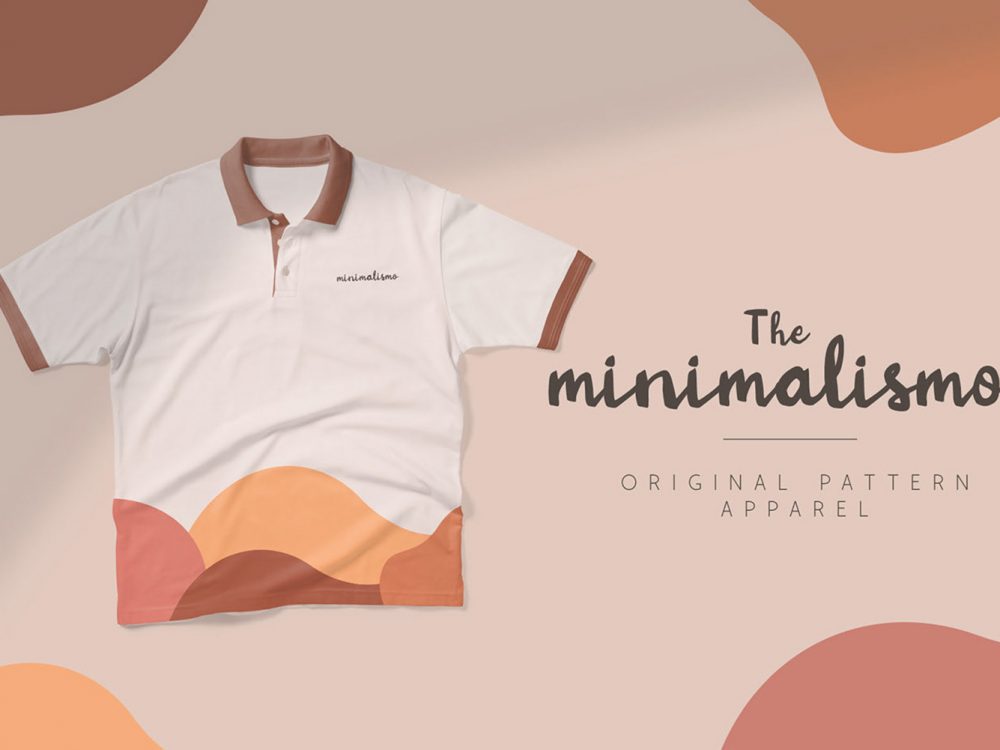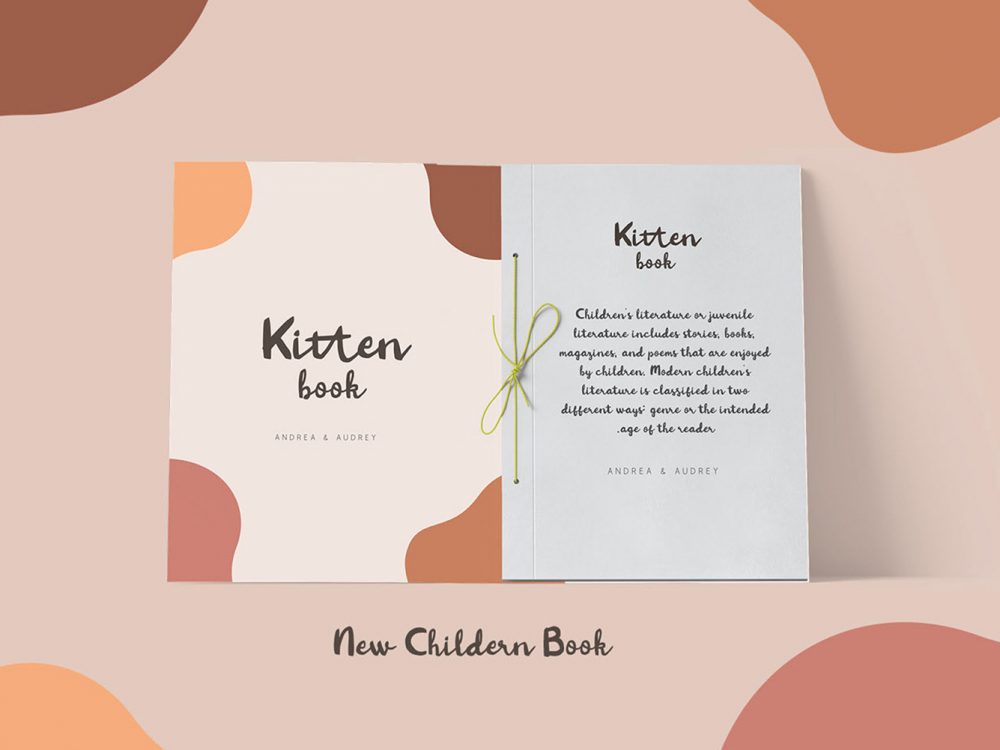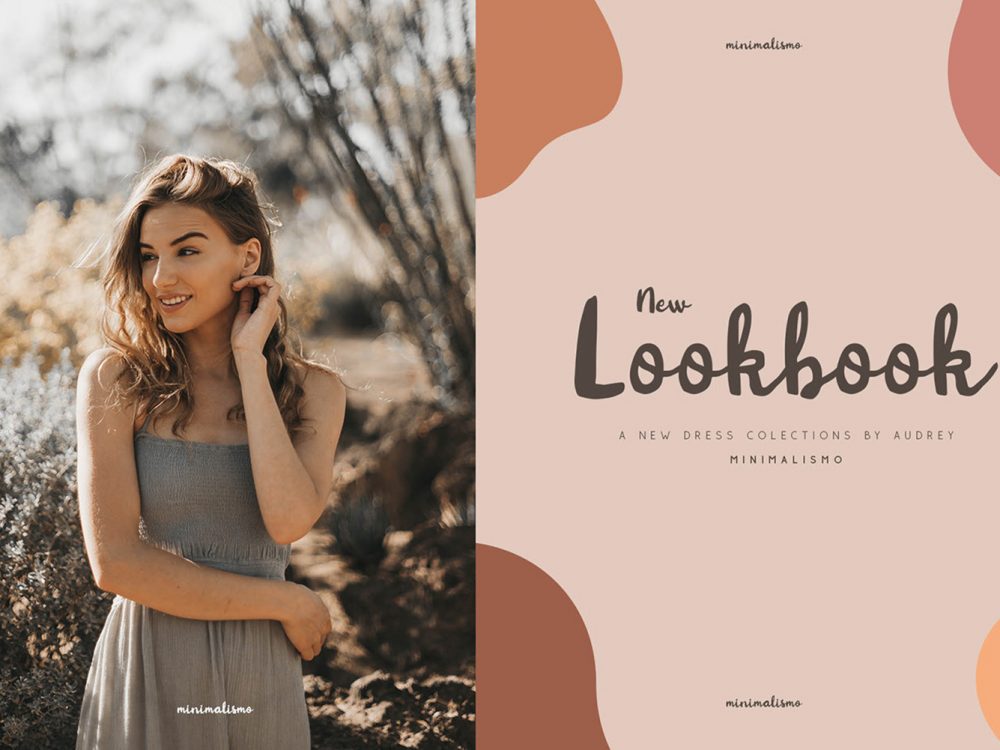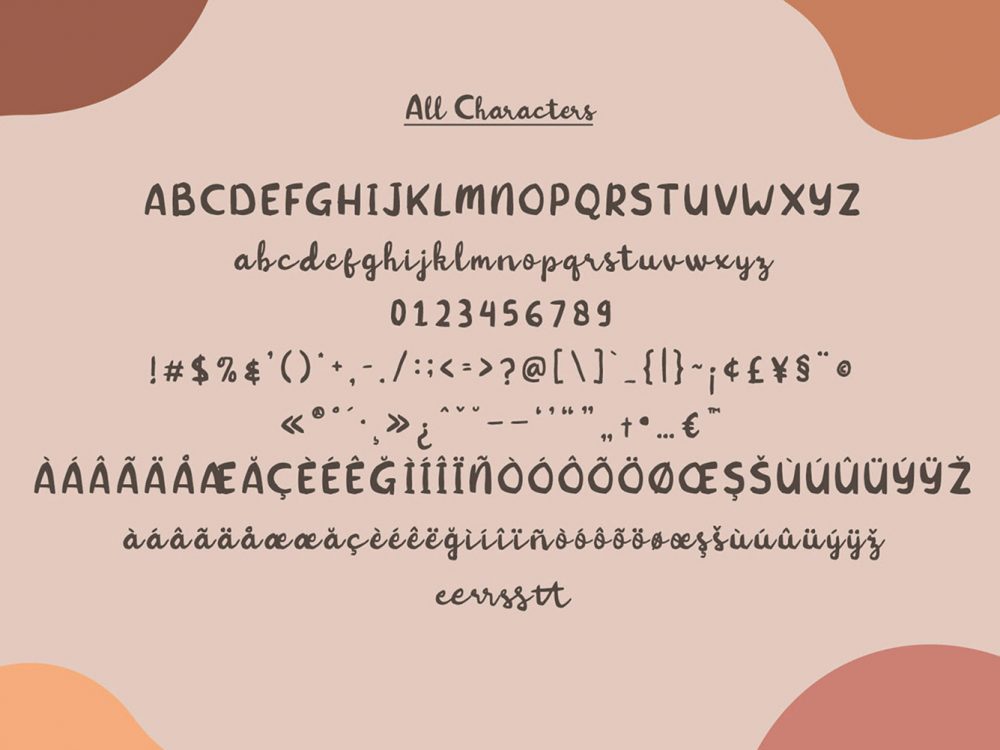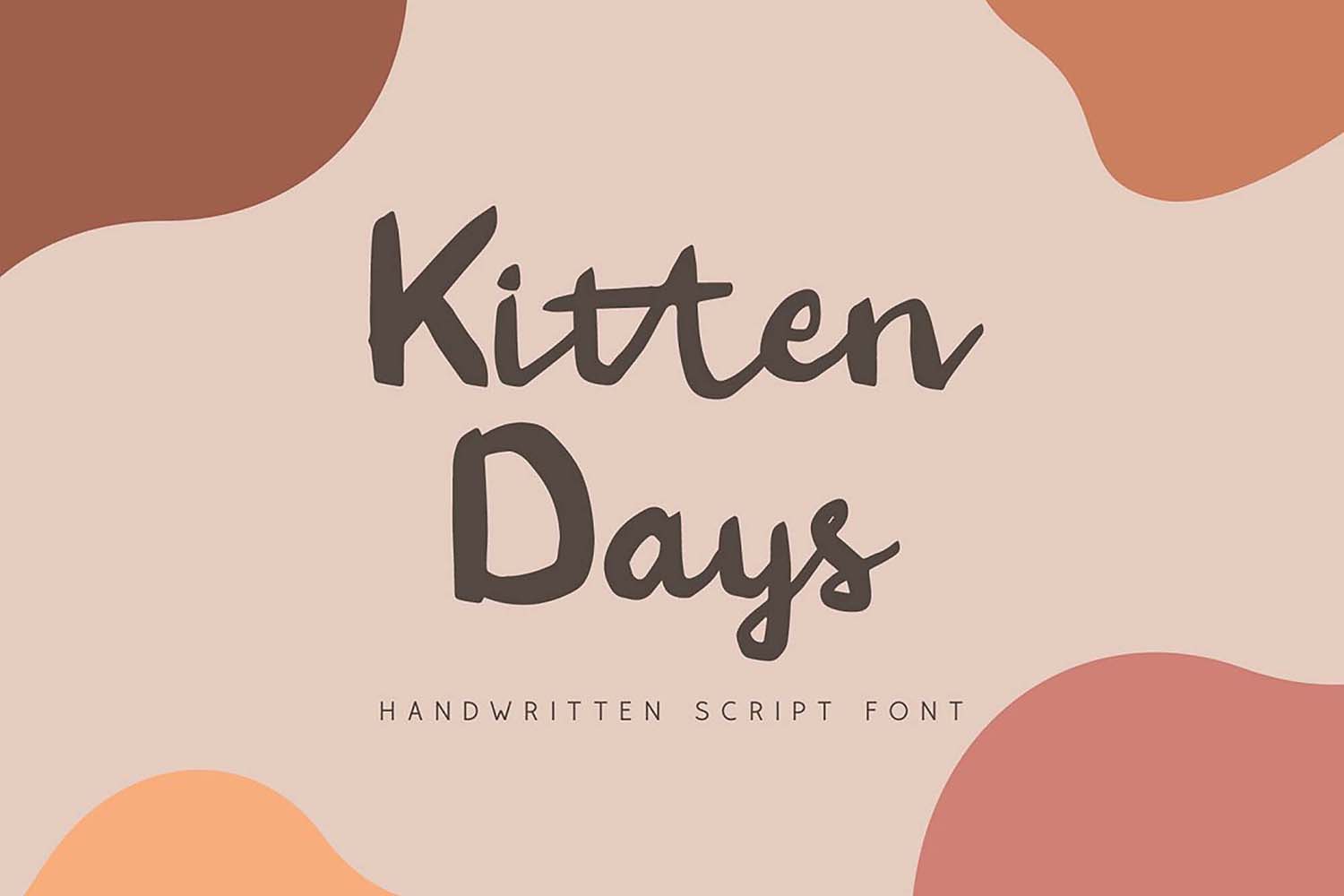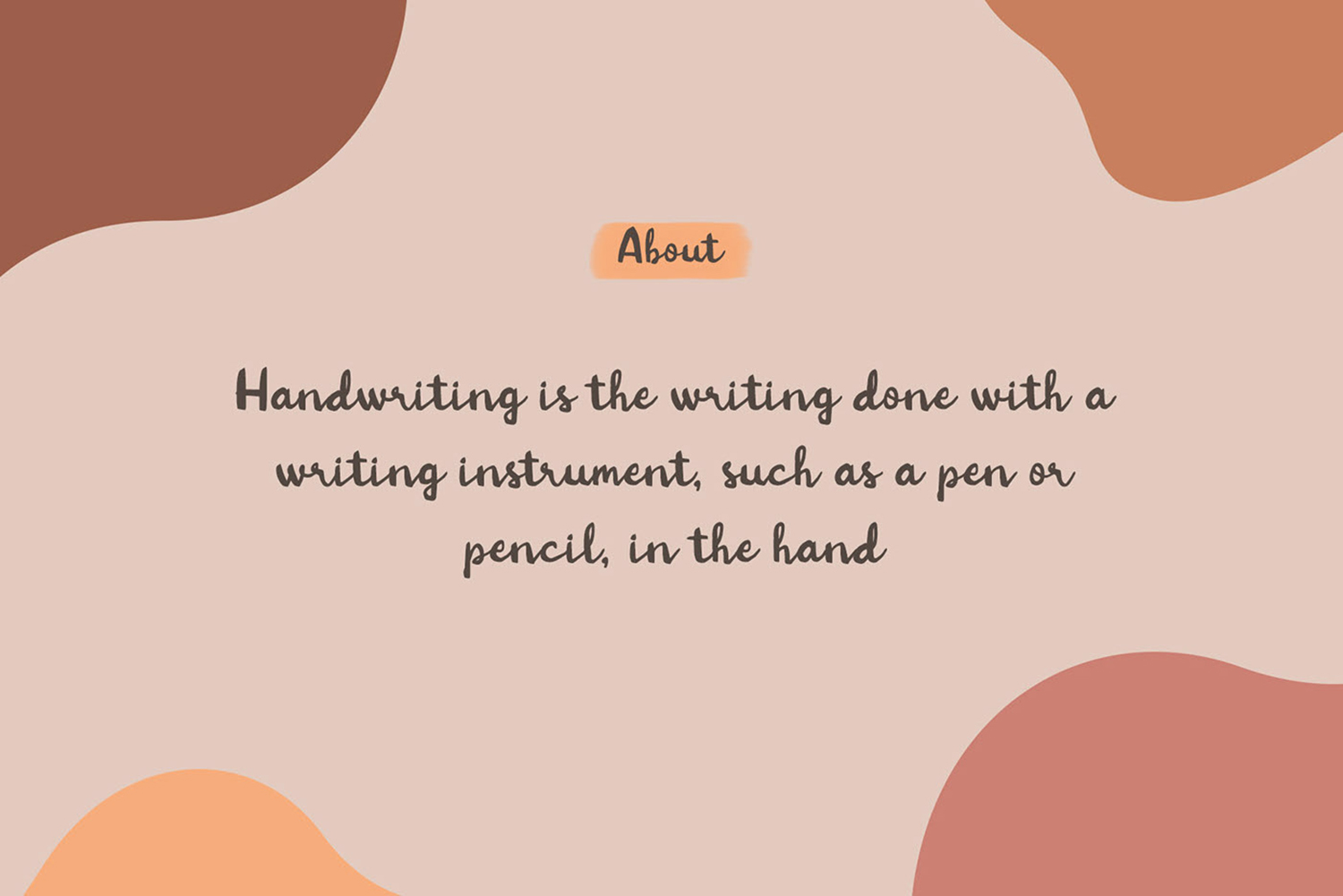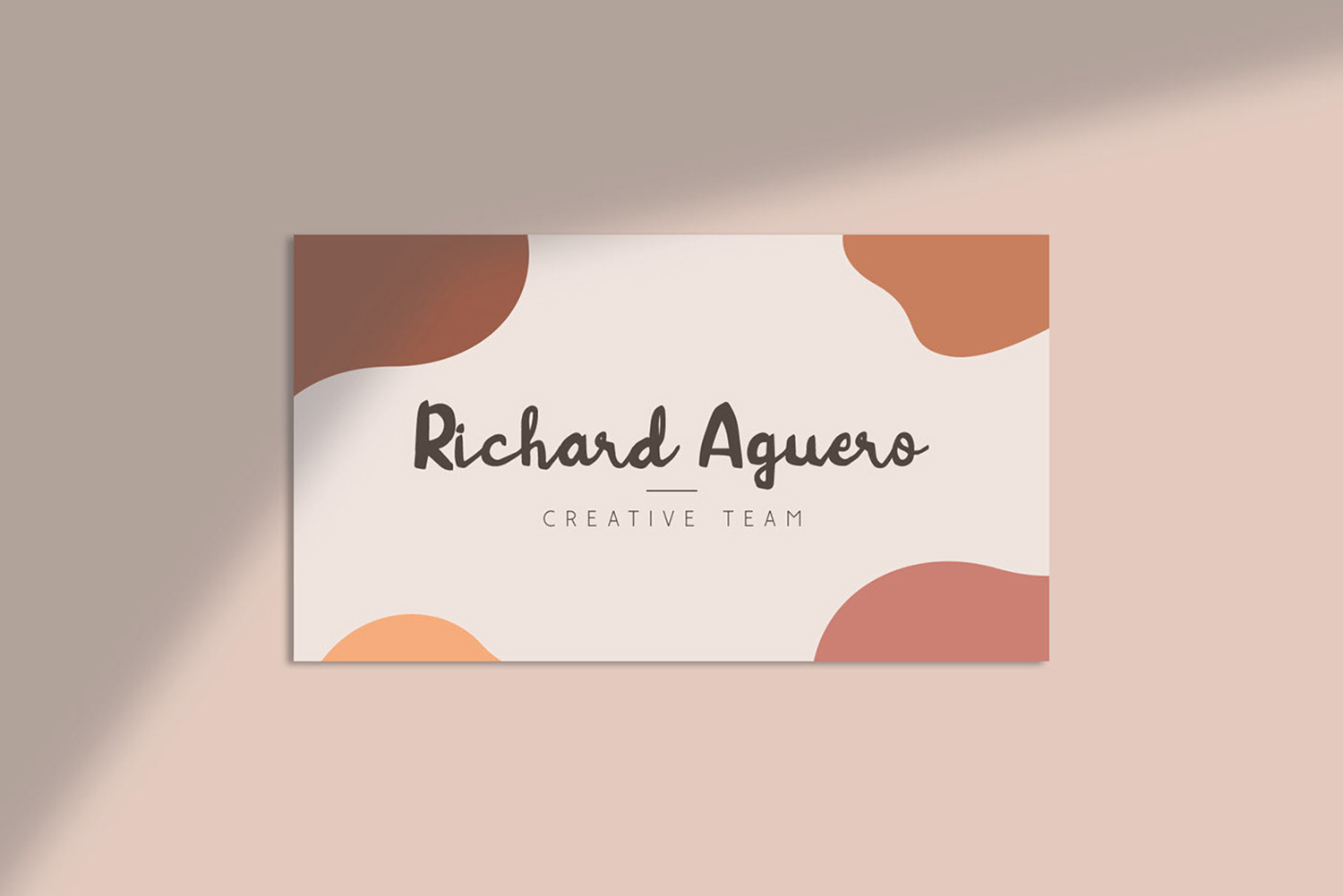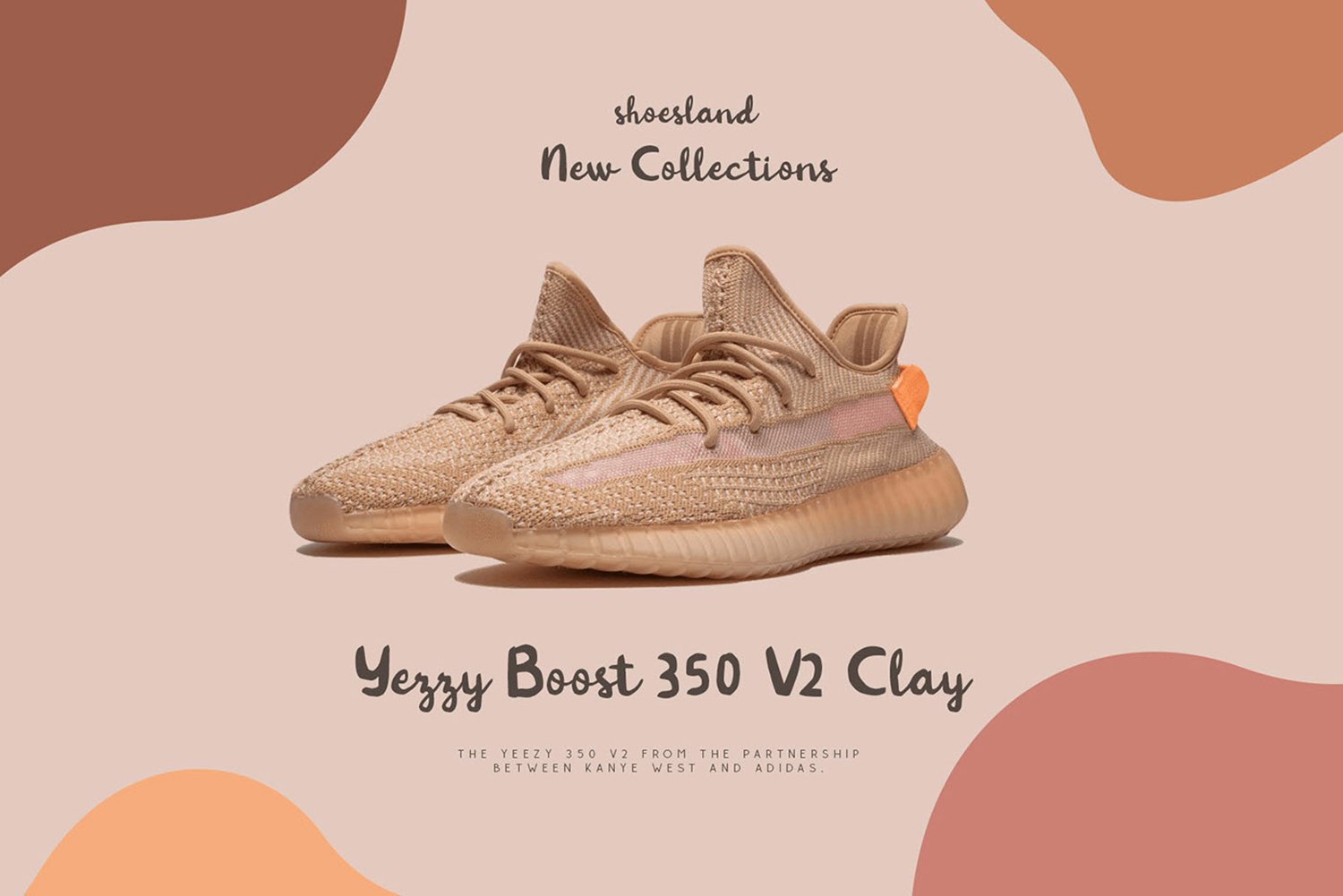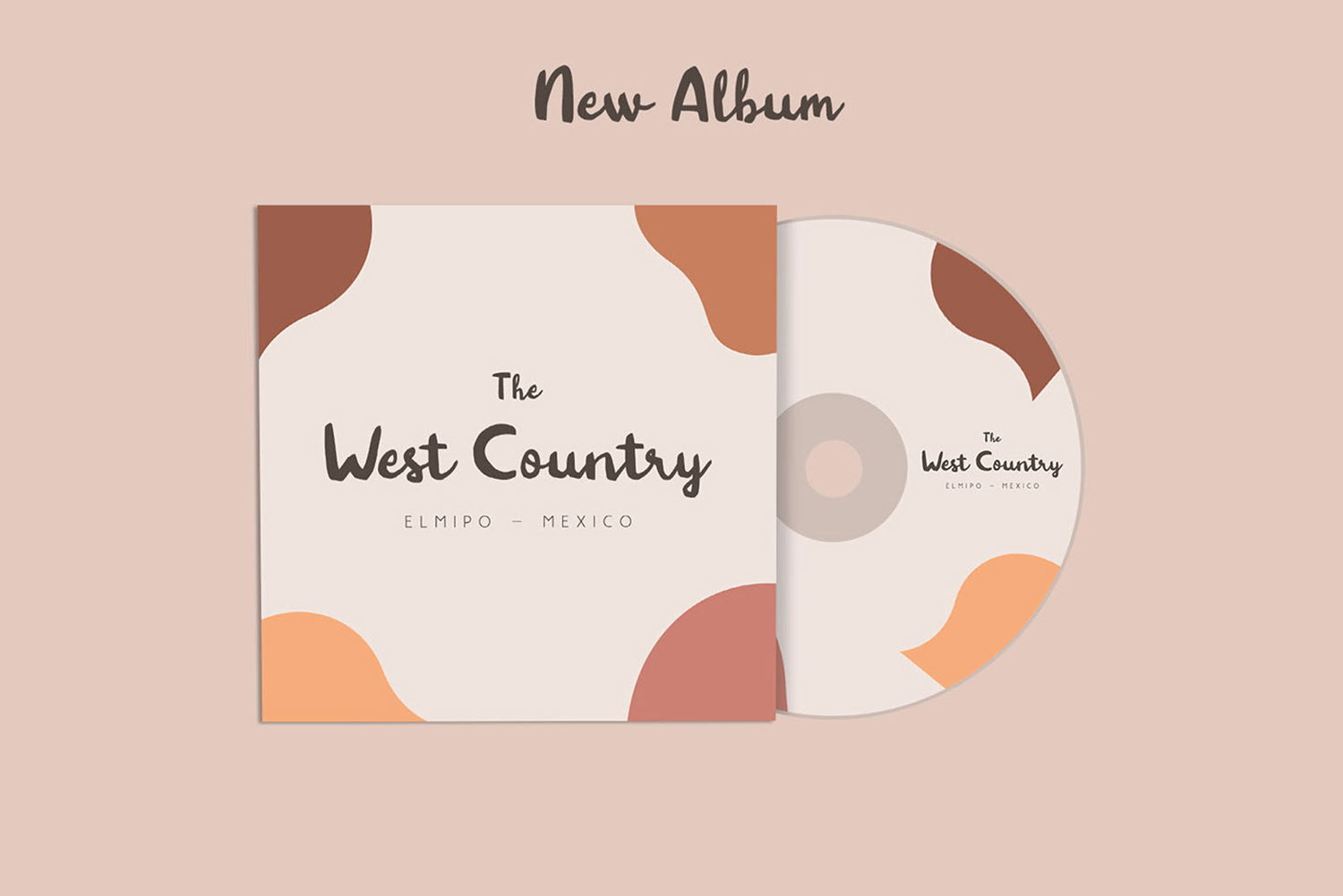
Kitten Days Handwriting Font
Kitten Days Handwriting Font is a beautiful interesting modern handwritten bold typeface that simulates writing with a brush and will help you create unique design projects that a script font requires. Use this font to create memorable modern cool posters, wedding invitations, cards, branding, flyers, and more. If you wish to access more features and use them for commercial work please buy the full version.